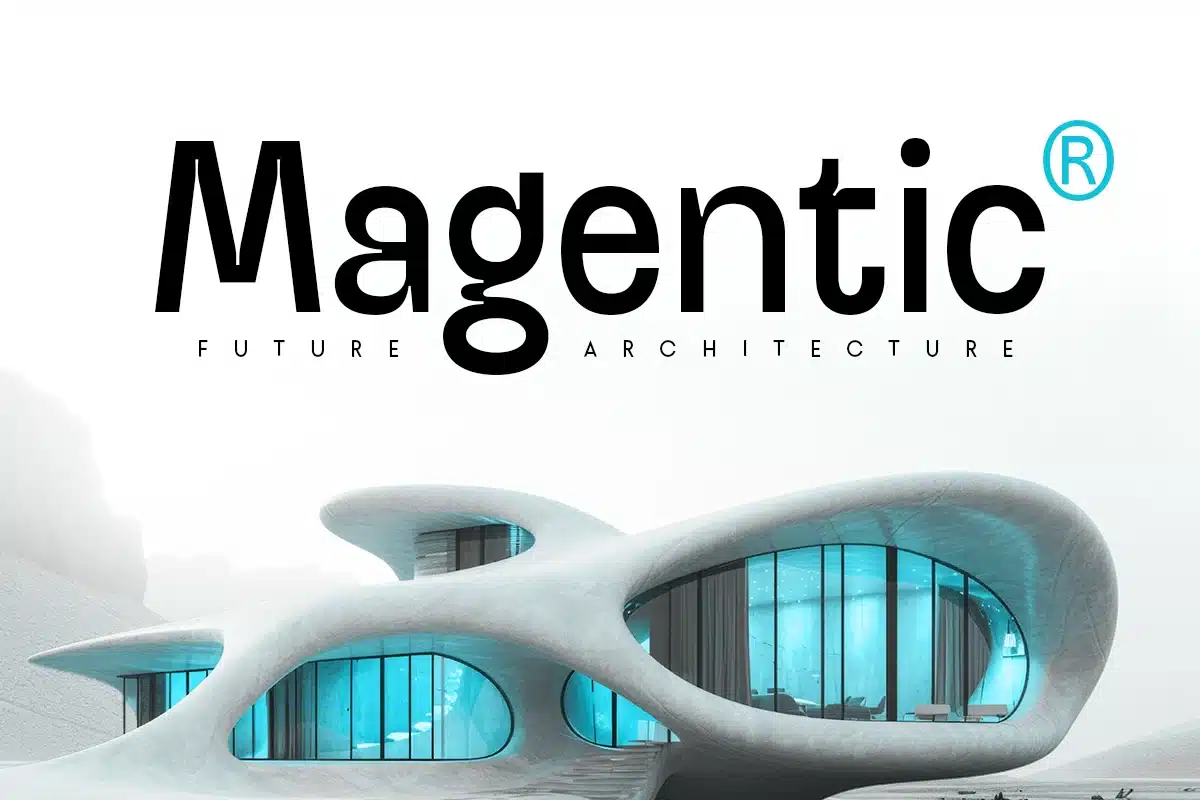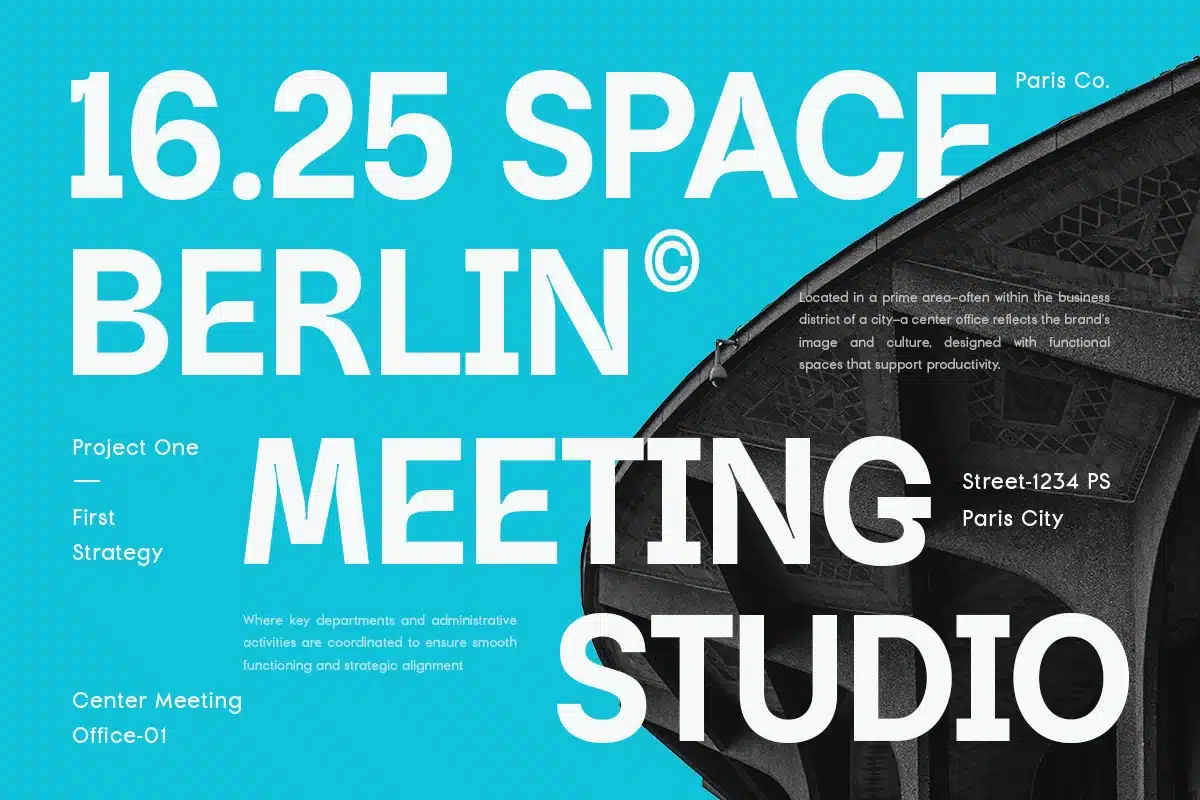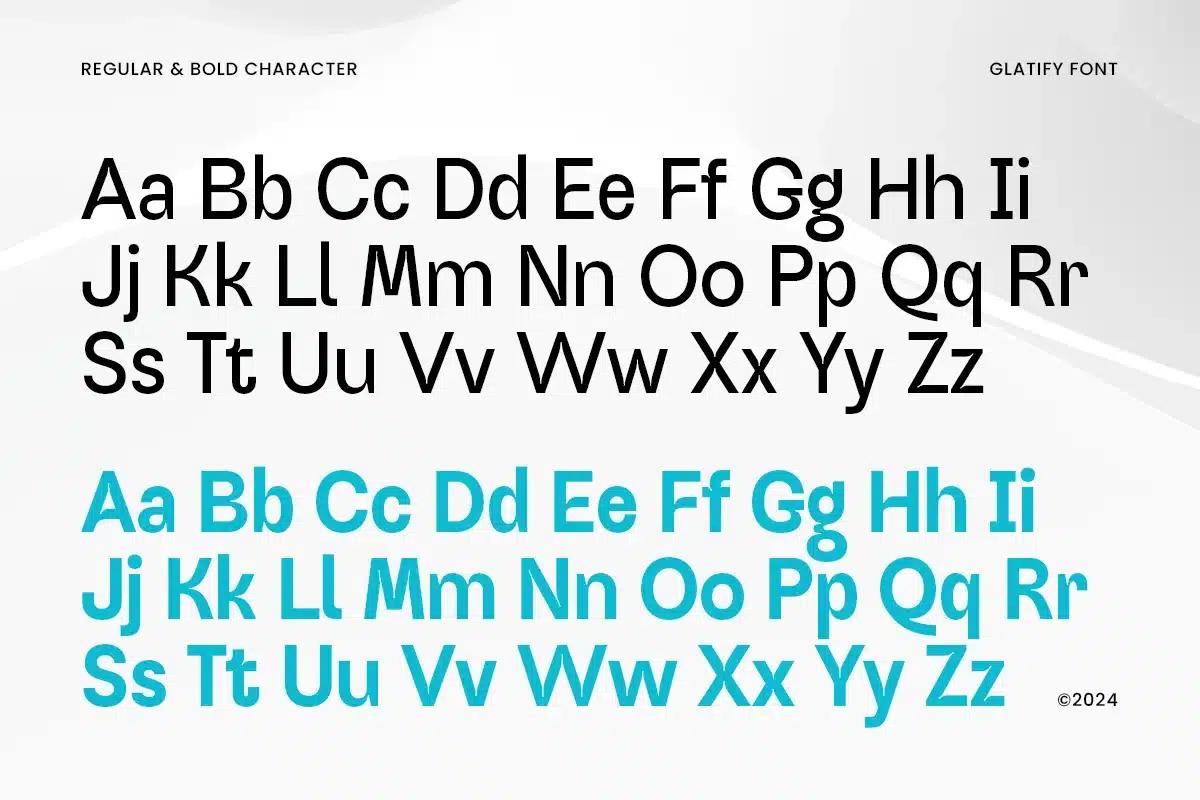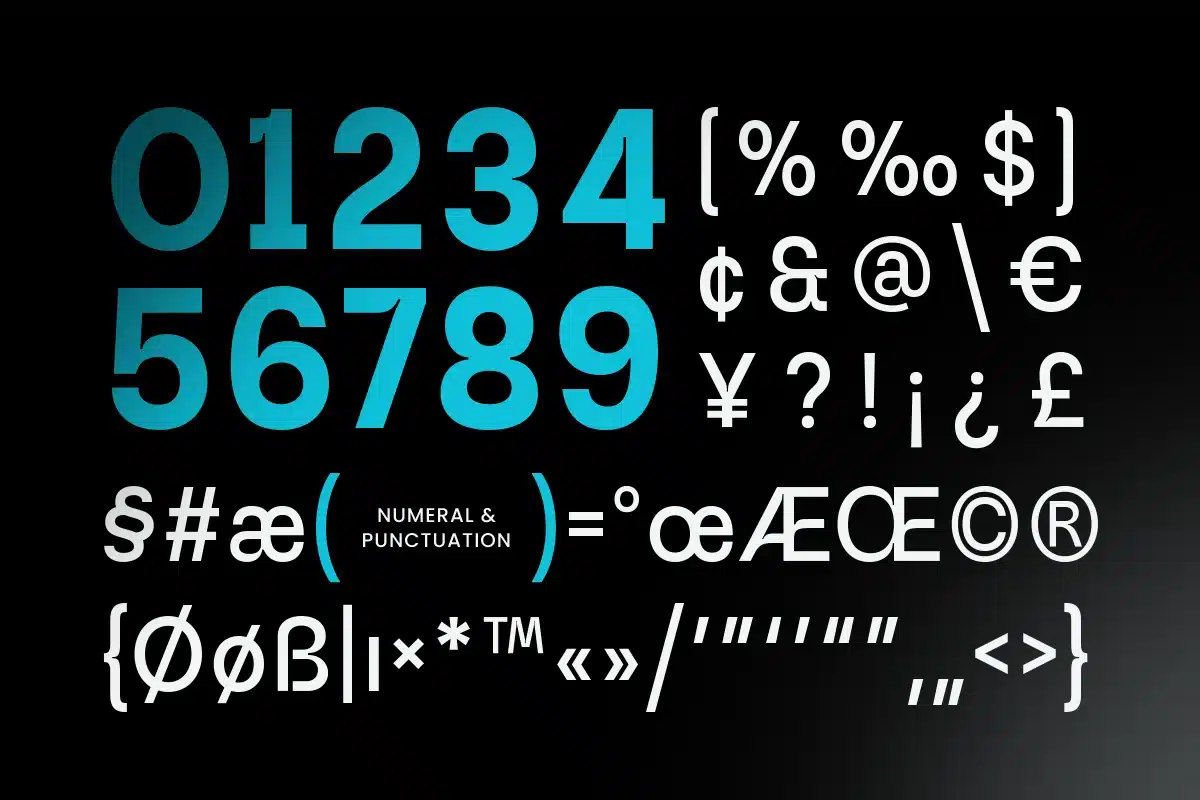
Glatify – Modern Logo Font
Glatify – Modern Logo Font is a clean and contemporary display typeface designed to deliver clarity, professionalism, and strong brand presence. Inspired by modern branding trends, minimalist design principles, and corporate visual identity, Glatify is built to support brands that value simplicity, elegance, and versatility.
The font features balanced proportions, smooth curves, and refined letterforms, making it highly readable while maintaining a modern and stylish character. Glatify is ideal for logo design and brand-focused typography, helping businesses communicate trust, creativity, and professionalism.
Glatify Font Features
- Complete character set including uppercase, lowercase, numerals, symbols, and punctuation
- Ready wit 2 Multiple weights: Regular and Bold version
- OpenType features included to support advanced typography and modern design needs
Glatify is perfect for:
- Modern logo and brand identity design
- Startup and corporate branding
- Creative agencies and design studios
- Website headers and digital platforms
- Business presentations and marketing materials
- Product packaging and editorial layouts
Whether you are building a startup brand, refreshing a corporate identity, or designing a clean modern logo, Glatify provides a timeless and professional typographic solution.